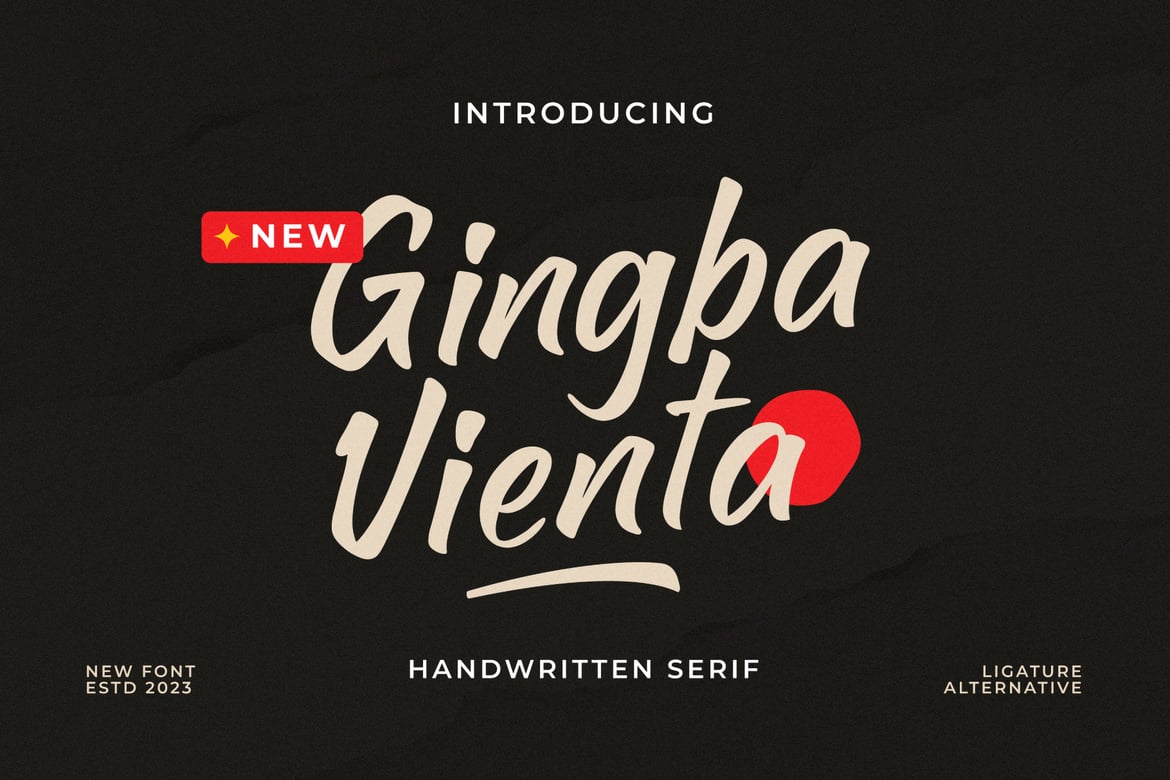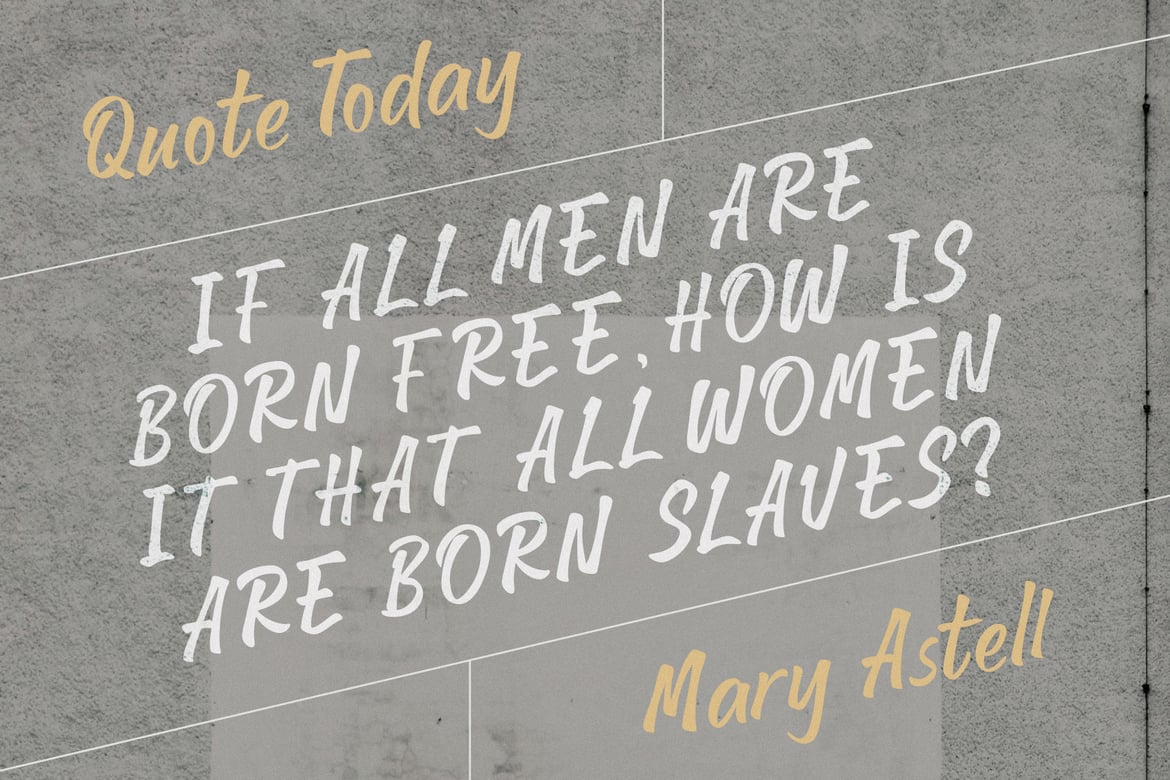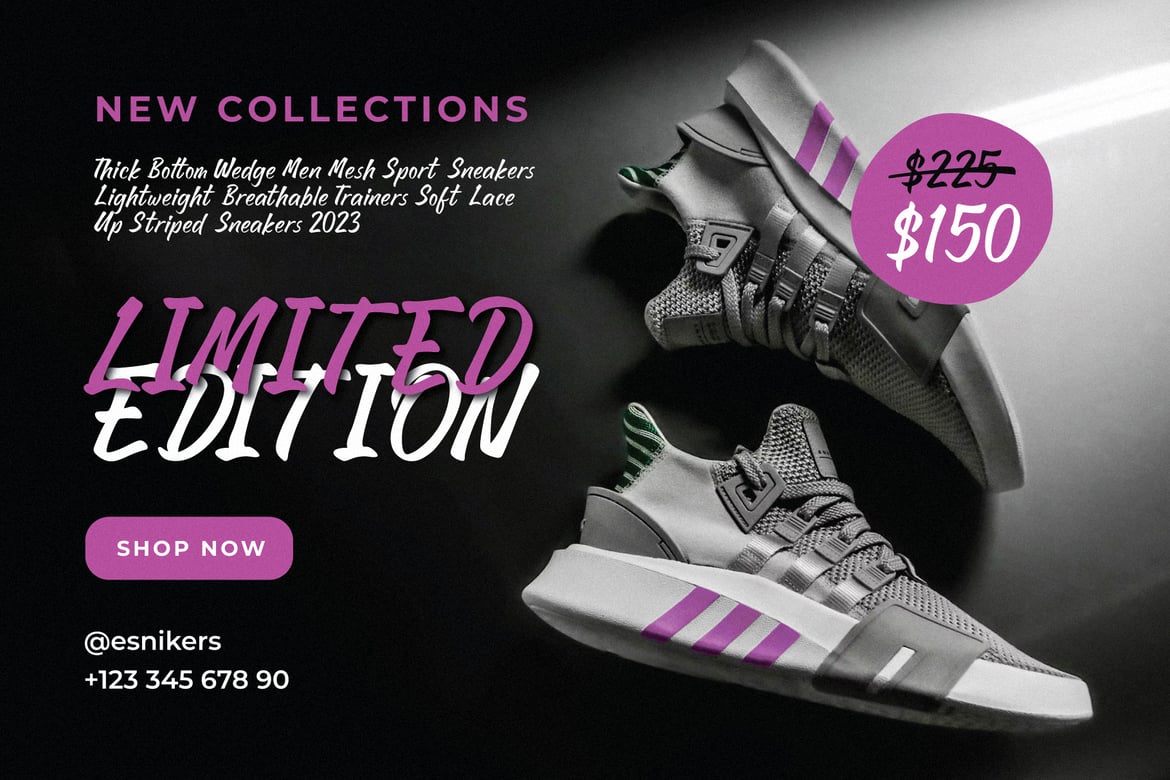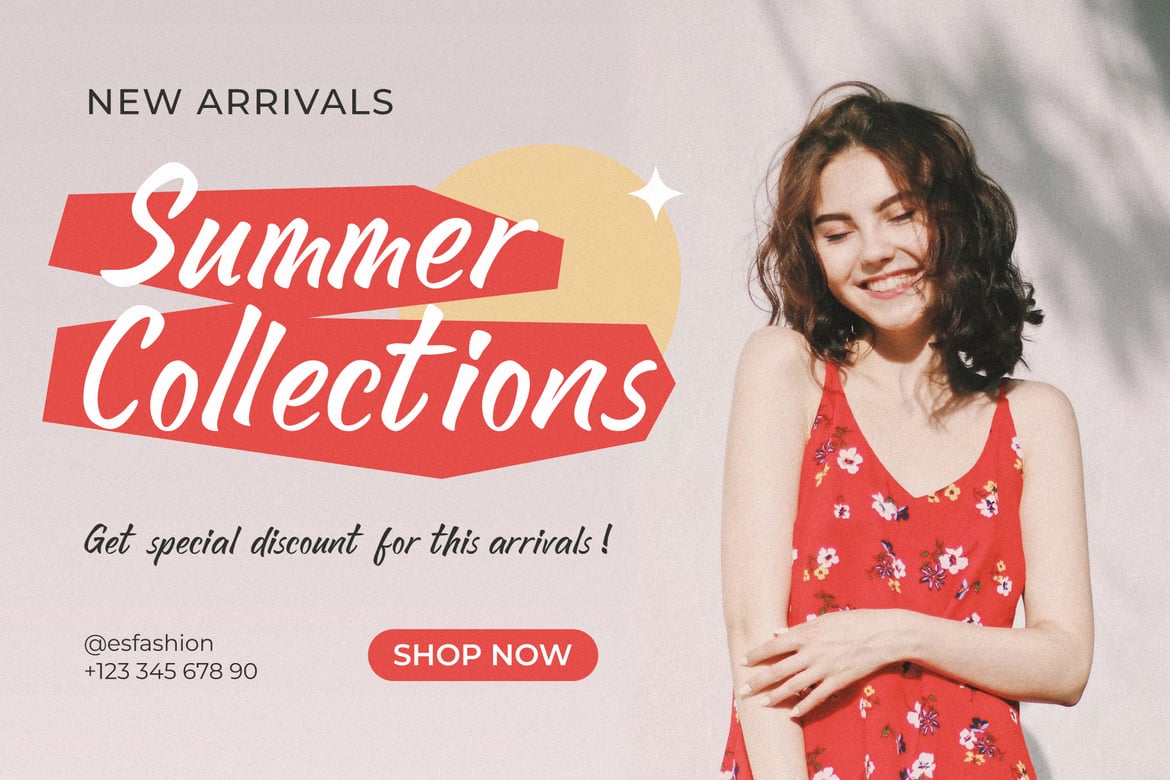
Gingba Vienta – Handwritten Serif Font
Key Features:
* Alternate Characters: Gingba Vienta – Handwritten Serif comes with a variety of alternate characters that allow you to create endless variations and combinations. Easily add a creative touch to your designs!
* Ligatures: Presenting beautiful ligatures, Gingba Vienta – Handwritten Serif provides the possibility to combine characters and create a harmonious and flowing appearance.
* Multilingual Support: The multilingual support enables you to reach a global audience with ease. Gingba Vienta – Handwritten Serif includes the necessary characters for major languages worldwide.
* Uppercase and Lowercase: With carefully crafted uppercase and lowercase letterforms, Gingba Vienta – Handwritten Serif offers optimal flexibility in your designs.
* Symbols and Numerals: In addition to letter characters, Gingba Vienta – Handwritten Serif also provides elegant symbols and numerals, offering convenience in creating cohesive and comprehensive designs.